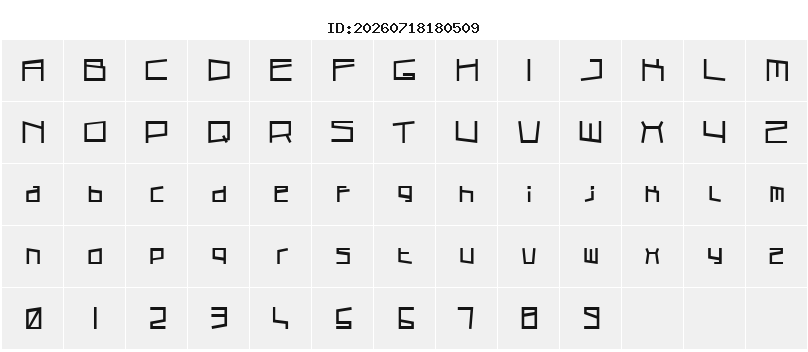
Cubic Sub Preview
• Font Name: Cubic Sub
• Designer: Roland Huse
About Cubic Sub.ttf
Cubic Sub.ttf is a modern, elegant sans-serif font designed for ultimate readability and visual harmony. Perfect for branding, headlines, web design, and print materials.